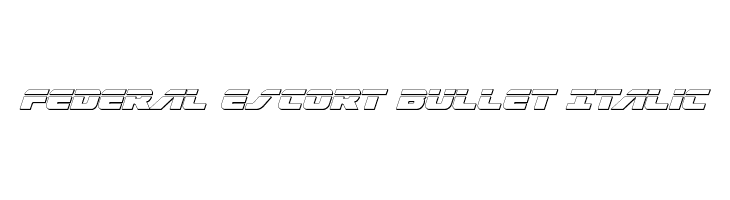
A bold, 3D geometric font with a strong, angular design.
A bold, 3D italic font with a futuristic and dynamic style.
A bold, geometric font with a futuristic, outlined style.
A bold, italicized font with a futuristic, outlined design.